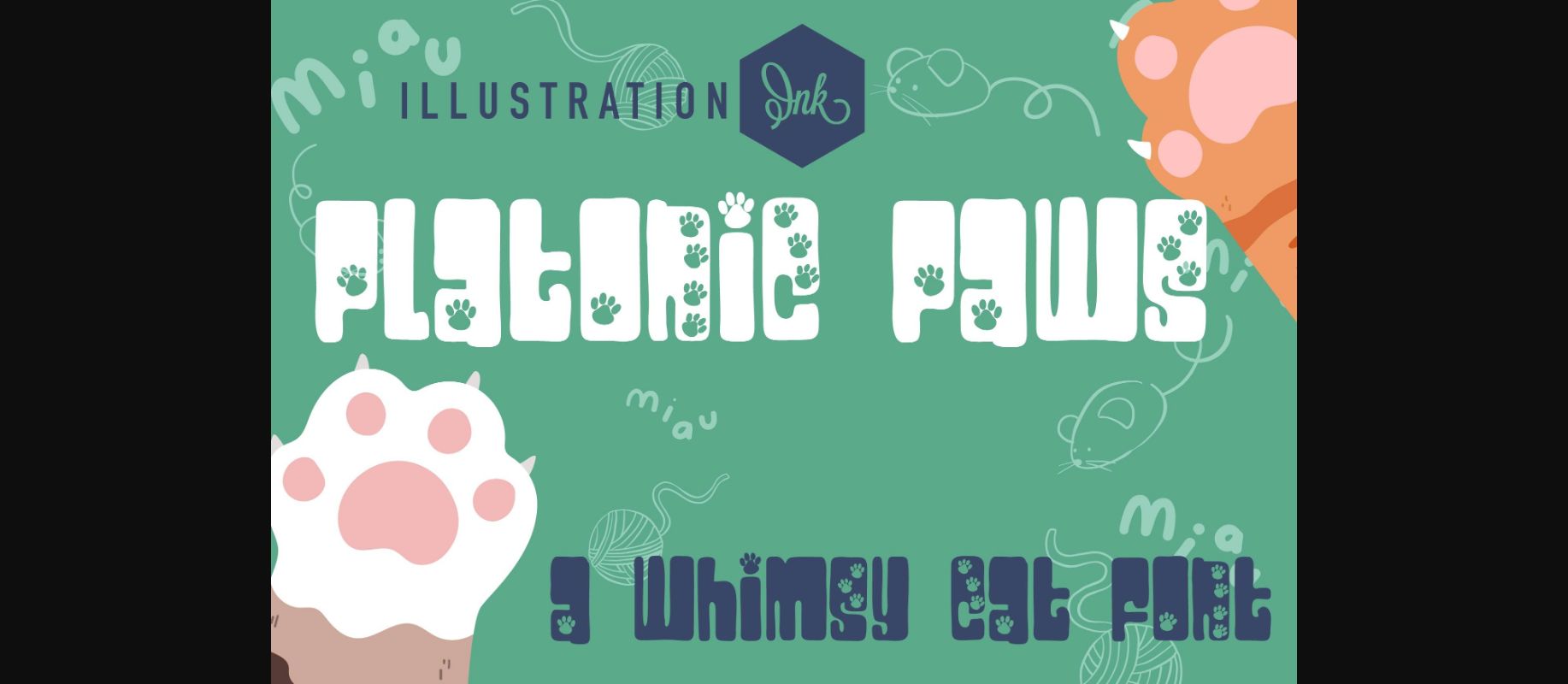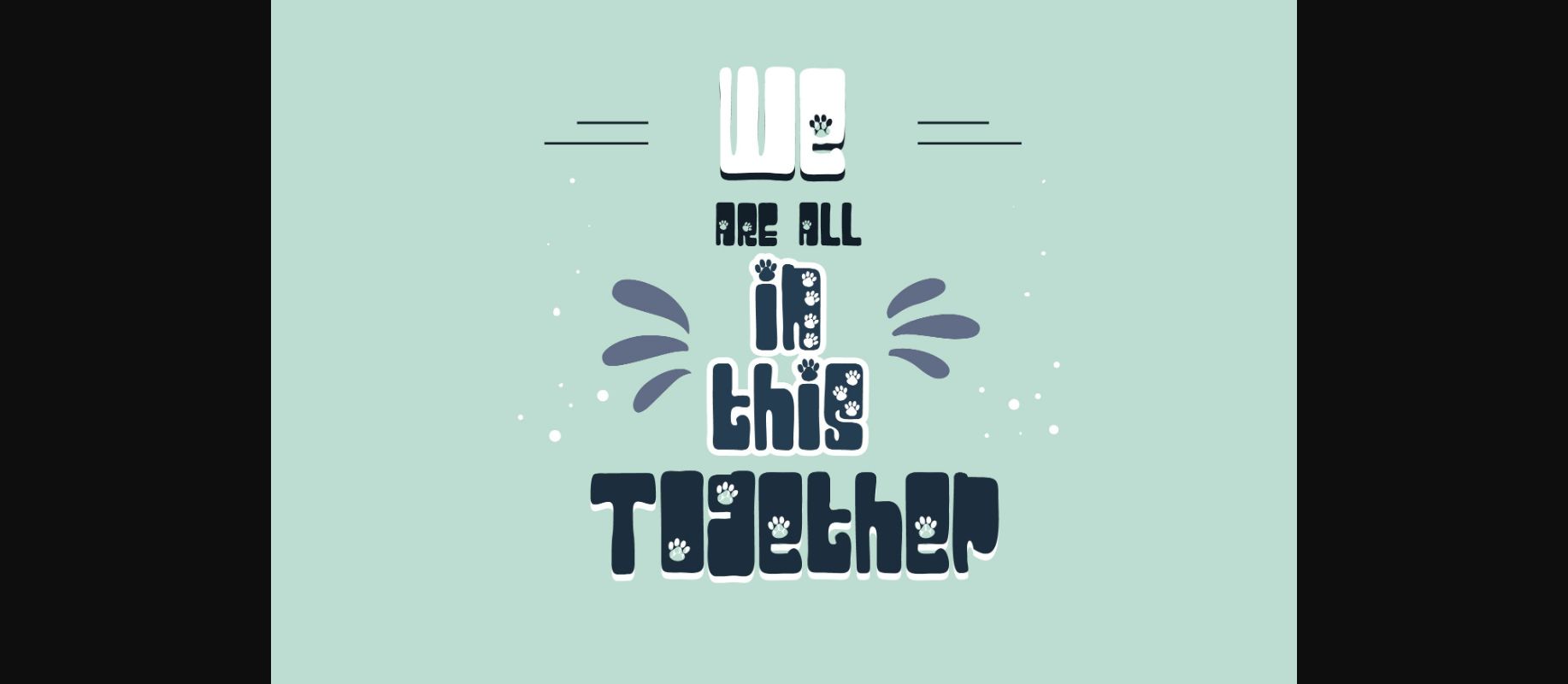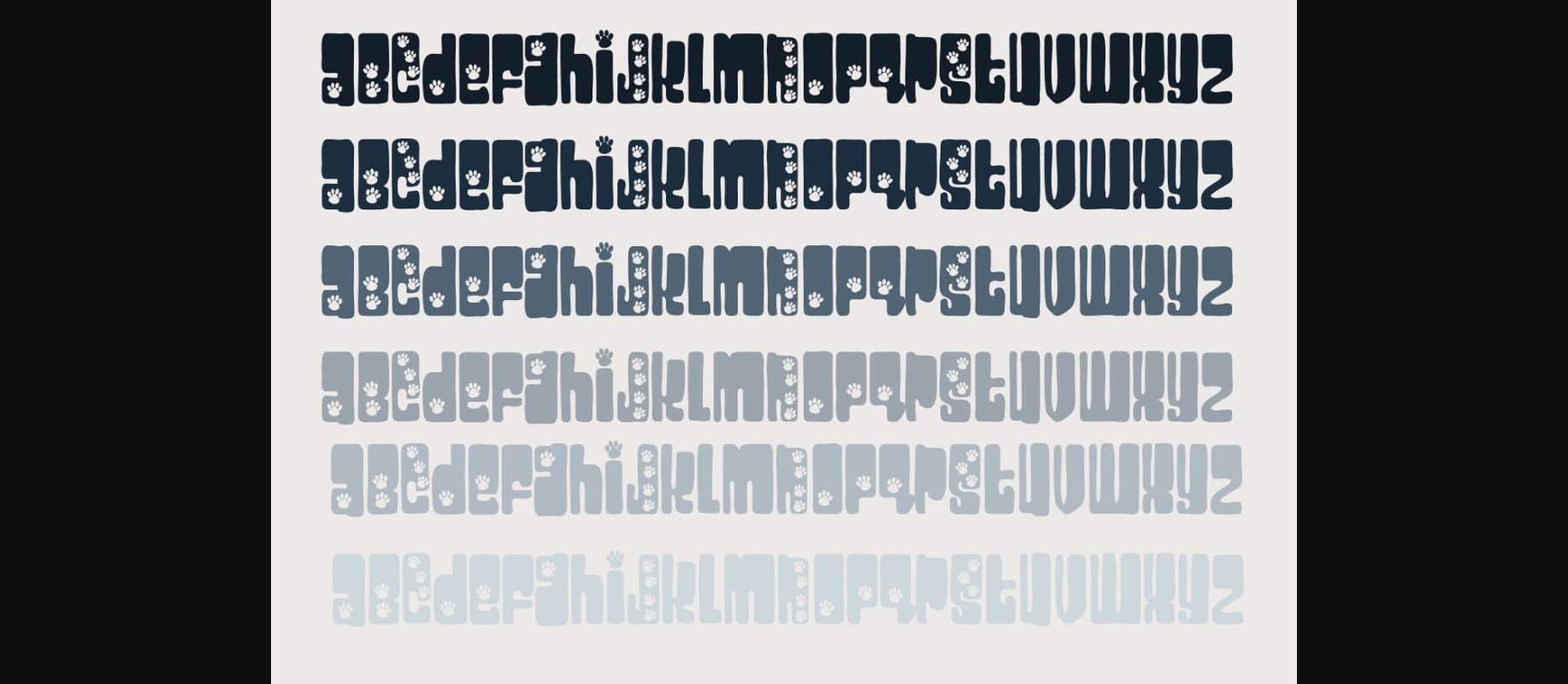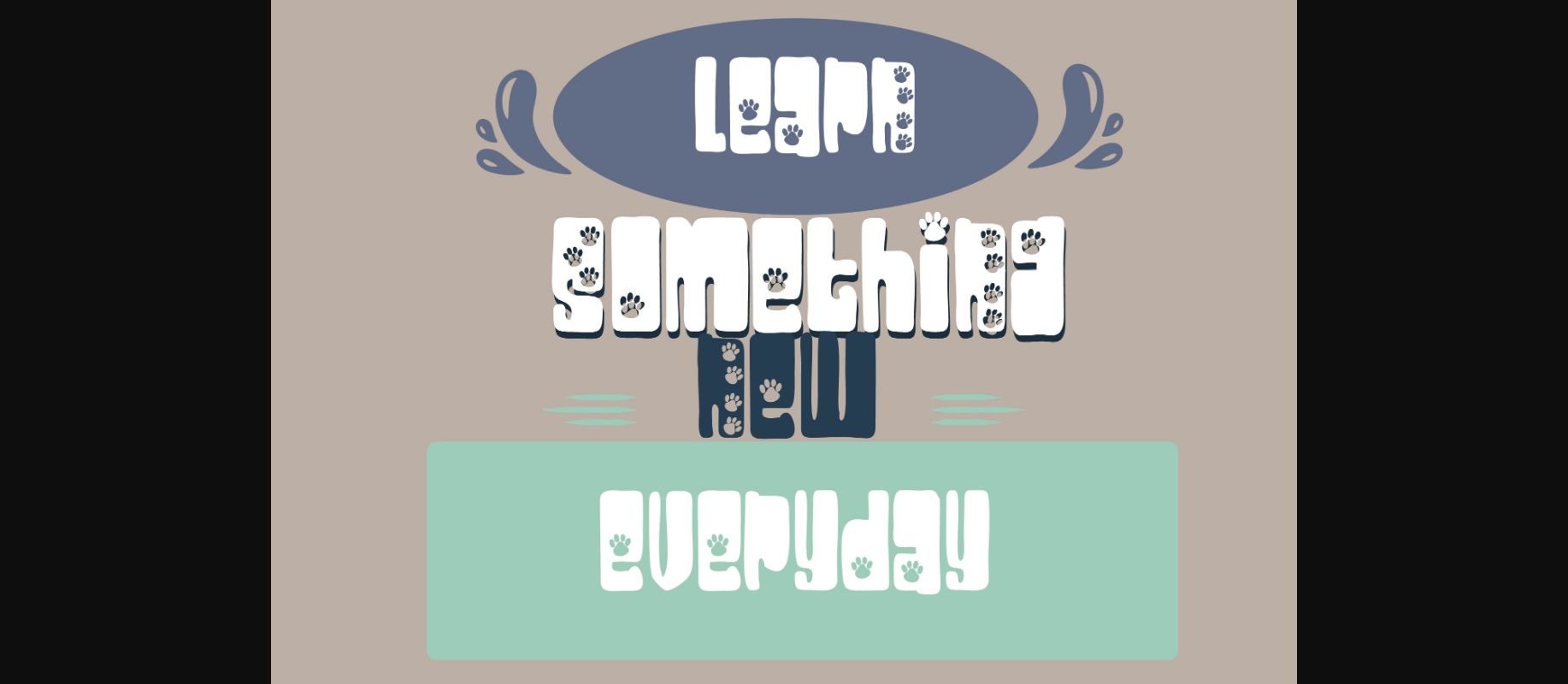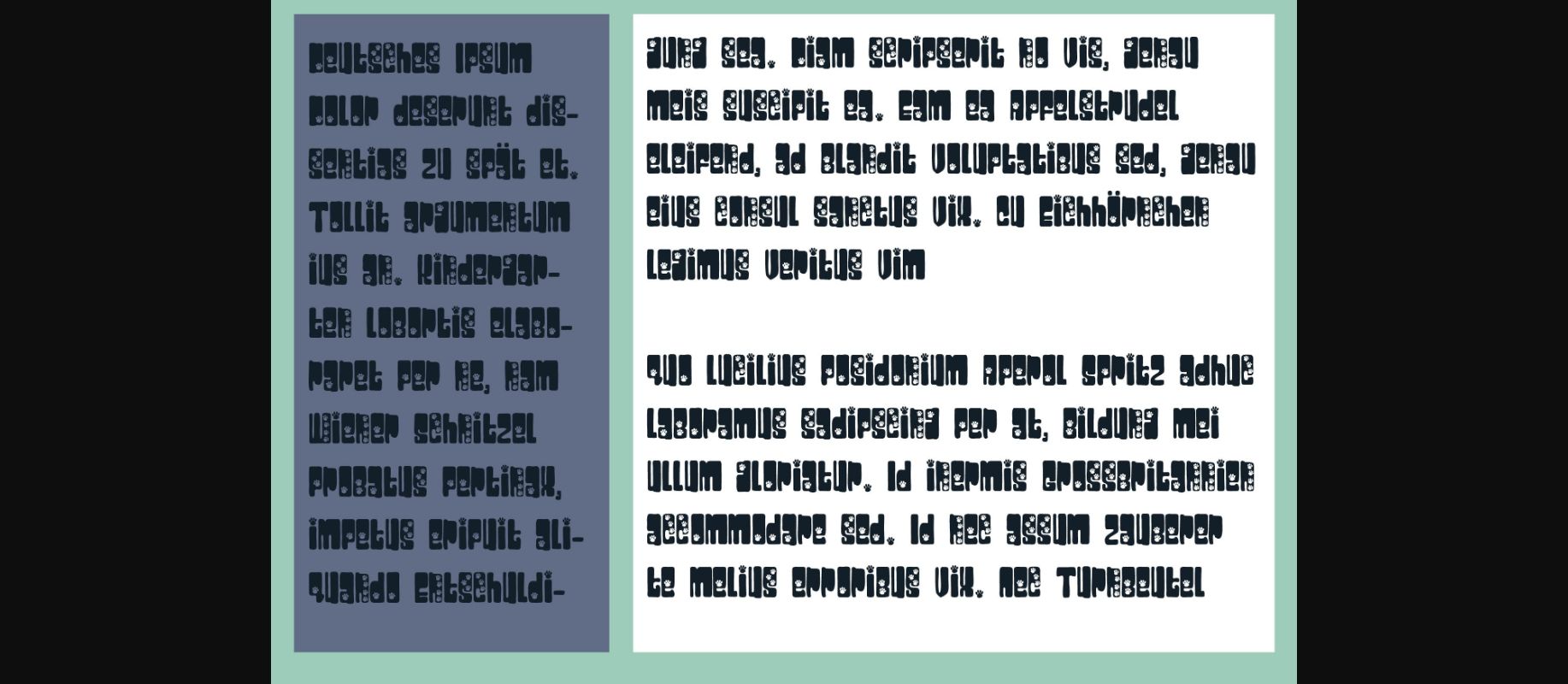
About Platonic Paws Font
This retro, hippy-style font features cat paws throughout.
A hand-crafted font is a font that is designed to feel unique and crafty. It is often used for invitations, greeting cards, and other items. Hand-crafted fonts are typically informal and they can be used for a variety of purposes.
It’s hand-crafted, which means that each letter was individually drawn with care.
It has a unique, organic look that is sure to stand out.
It’s perfect for a variety of projects, from logos and websites to everyday text.
A hand-crafted font is a font that is designed to feel unique and crafty. It is often used for invitations, greeting cards, and other items. Hand-crafted fonts are typically informal and they can be used for a variety of purposes.
It’s hand-crafted, which means that each letter was individually drawn with care.
It has a unique, organic look that is sure to stand out.
It’s perfect for a variety of projects, from logos and websites to everyday text.